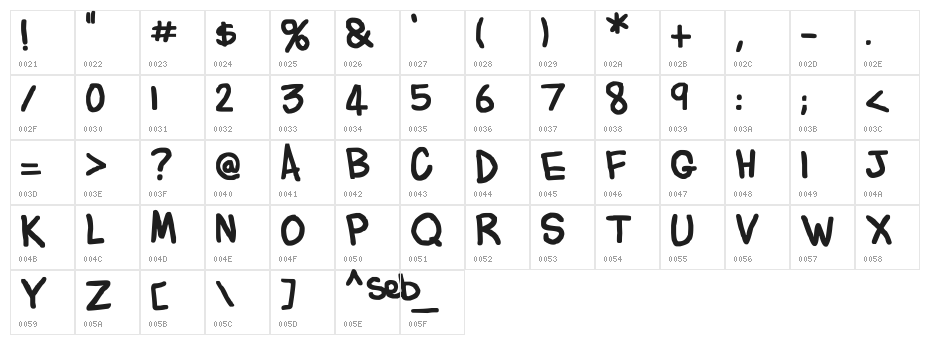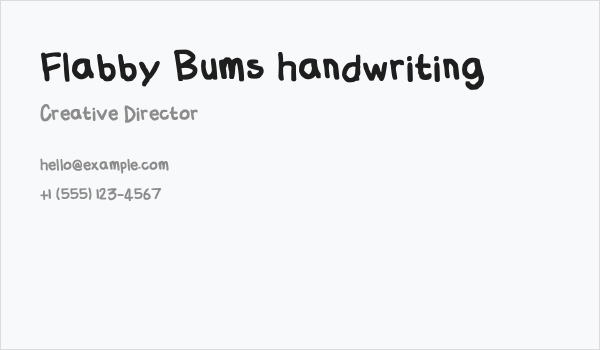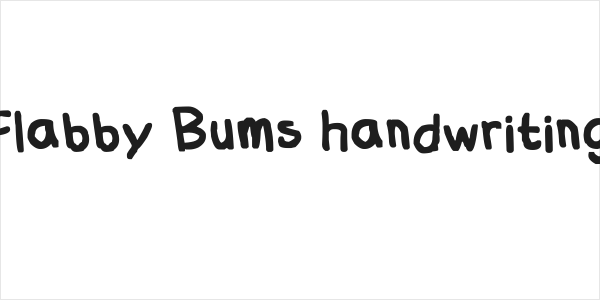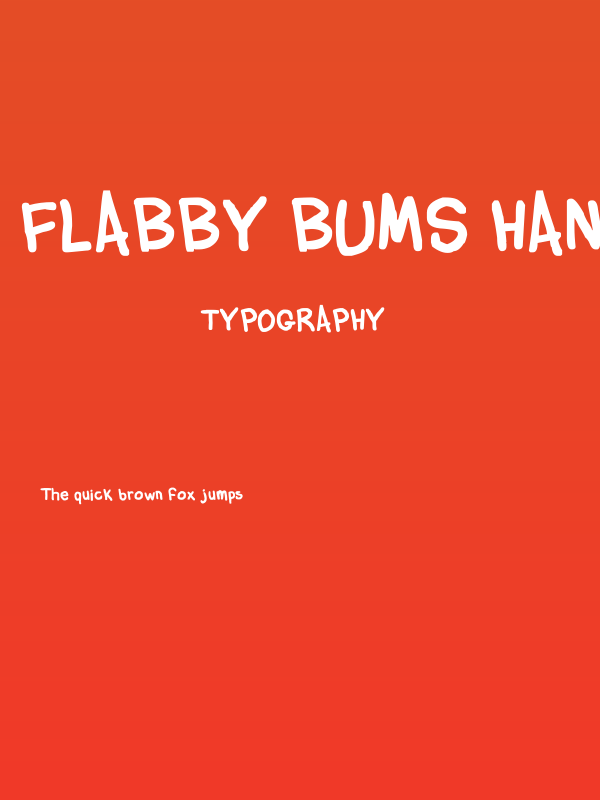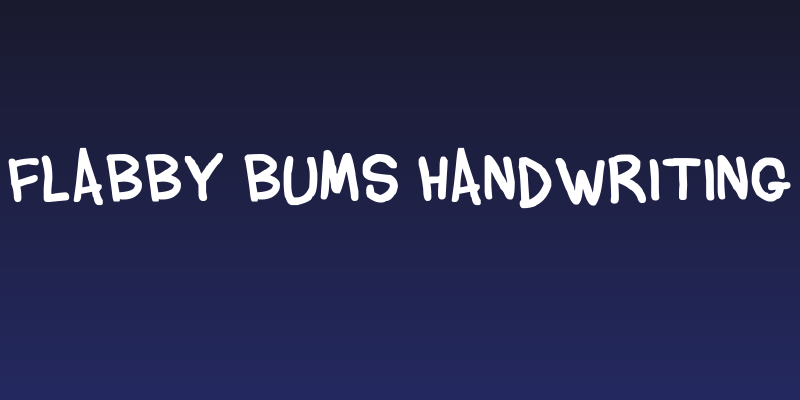
Flabby Bums handwriting Font
Flabby Bums handwriting Description
This playful and whimsical font features a bold, handwritten style with a casual and friendly appearance. The letters are rounded and slightly irregular, giving it a personal and informal touch. It captures the essence of a carefree, childlike handwriting, making it ideal for projects that require a fun and approachable aesthetic. The font maintains consistent thickness throughout, ensuring readability while adding a touch of personality. Its unique character shapes and lively presence make it suitable for creative and lighthearted designs.
| Proposed Projects | Ideal for children's books, playful branding, greeting cards, and casual invitations. |